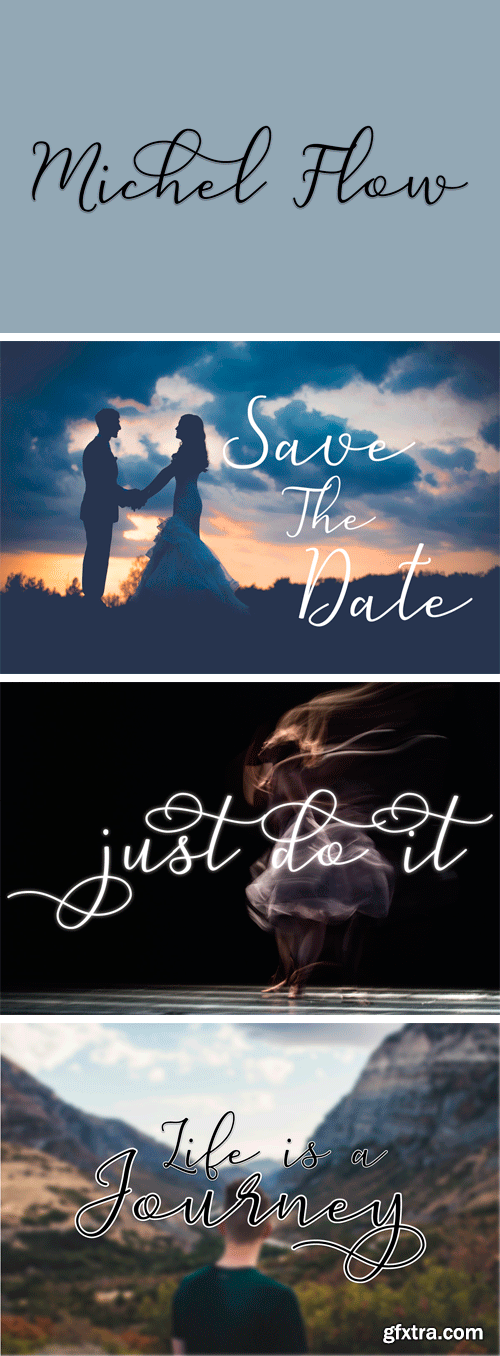
Michel Flow is a unique and script font. This font is ideal for branding and decorate your any project. This fonts are perfect for wedding invitation or your blog. you can create a logo or beautiful frame for your home. Or just use for your small business, book covers, stationery, marketing, magazines and more.